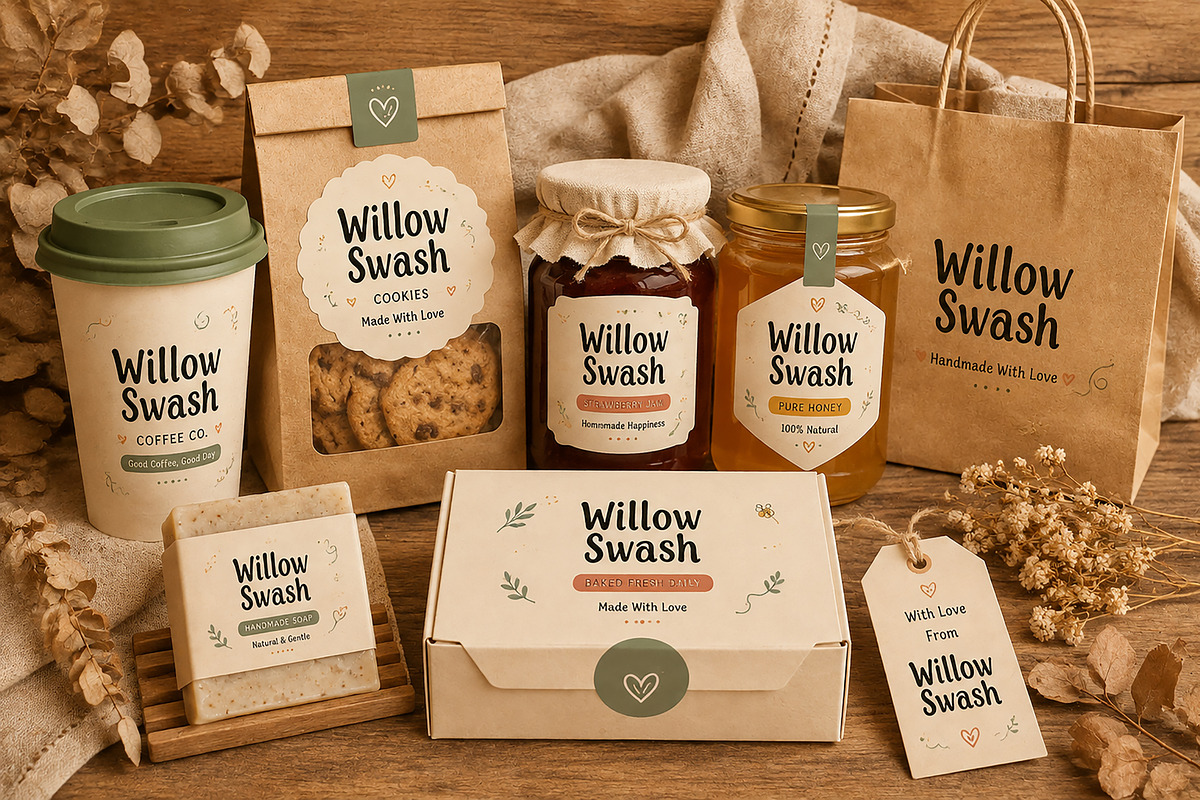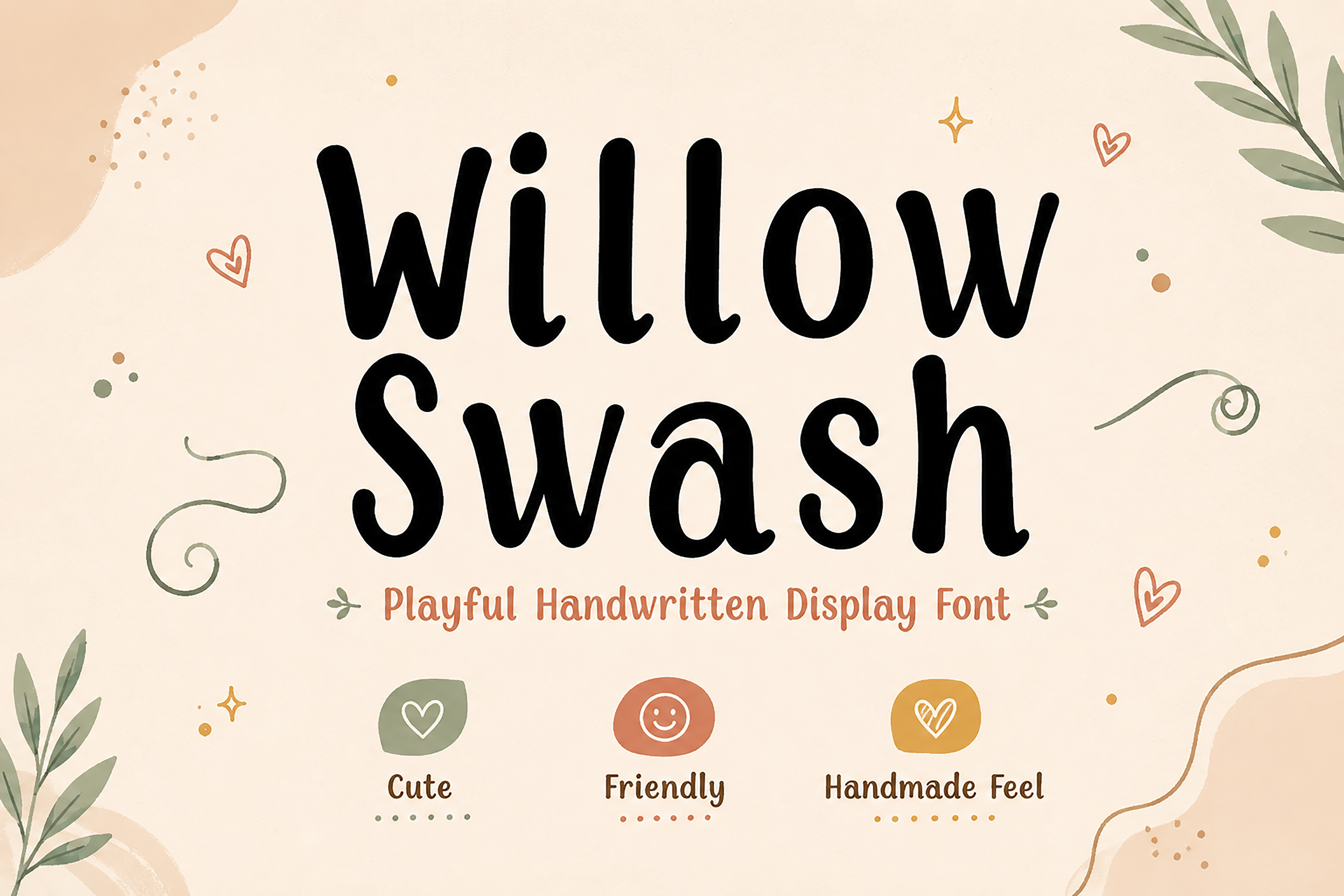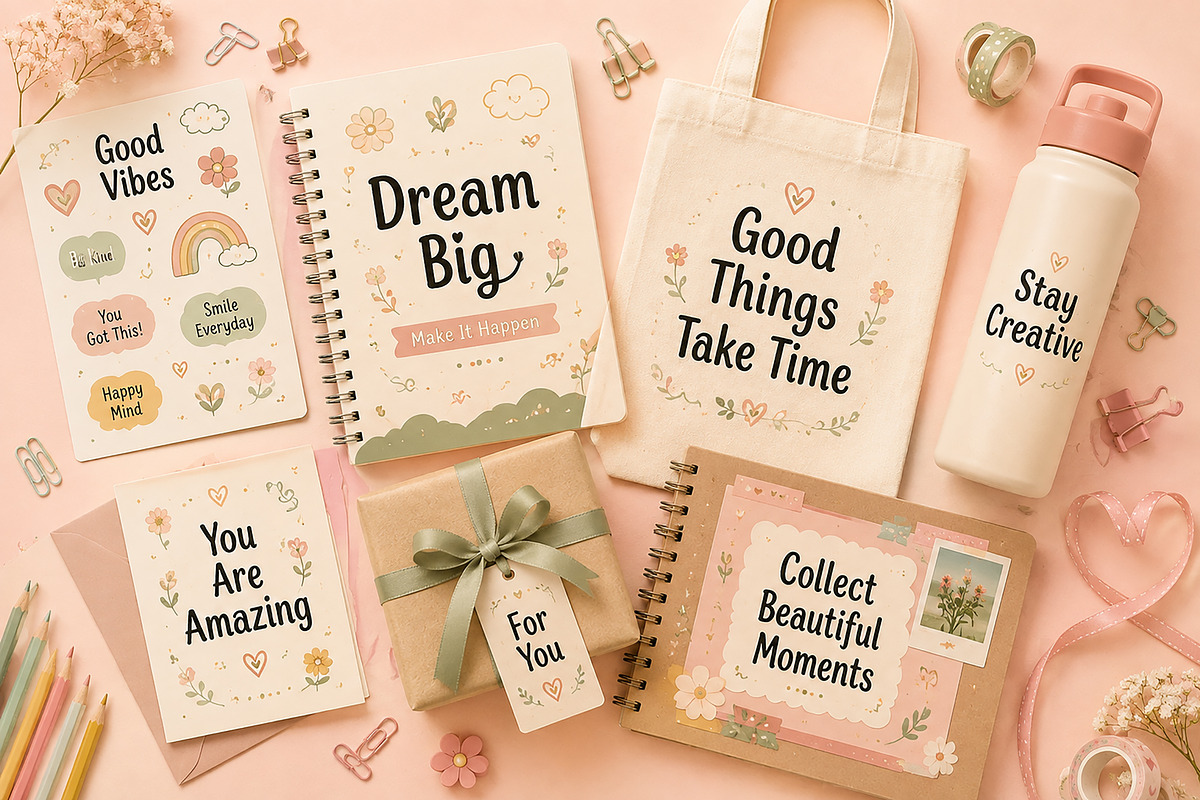
Willow Swash – Handwritten Font
Willow Swash – Playful Handwritten Display Font
Bring warmth, personality, and a handmade touch to your creative projects with Willow Swash, a playful handwritten display font designed to make every design feel friendly and inviting. Its smooth curves, rounded letterforms, and casual handwritten style make it an excellent choice for branding, packaging, crafts, and creative business projects.
Whether you're designing for a small business, creating Cricut projects, or making eye-catching social media graphics, Willow Swash delivers a charming and approachable look that stands out effortlessly.
Logos & Branding
Coffee Shops & Bakeries
Handmade Products
Gift Tags
Greeting Cards
Stickers
Scrapbooking
Tote Bags
T-Shirts
Children's Products
Party Invitations
DIY & Cricut Projects
Labels & Packaging
Posters
Craft Projects
Printable Designs
Creative Marketing Materials
Playful Handwritten Style
Cute & Friendly Letterforms
Smooth Rounded Characters
Clean and Easy to Read
Great for Print & Digital Projects
Beginner-Friendly